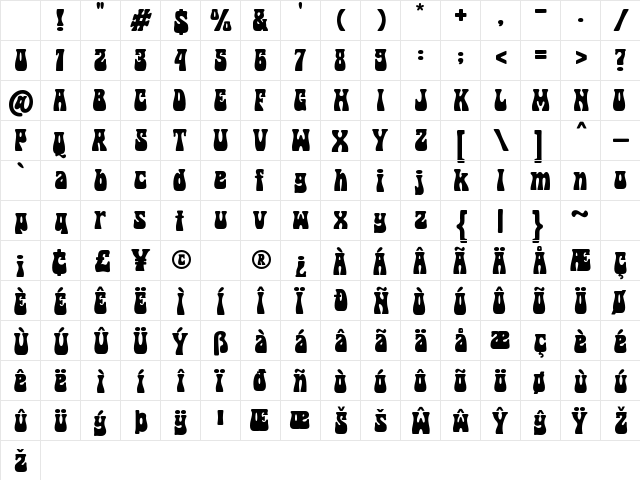
Cosmed Retro wears its vintage influences proudly, with letterforms that recall mid-century signage, classic packaging, and nostalgia-driven design.
Font Pairing: Combine Cosmed Retro with a simple slab or neutral sans - period-accurate companions reinforce the vintage feel without competing for attention.
Pro Tip: Lean into Cosmed Retro's period character by pairing it with aged paper textures, muted colour palettes, and vintage illustration styles.